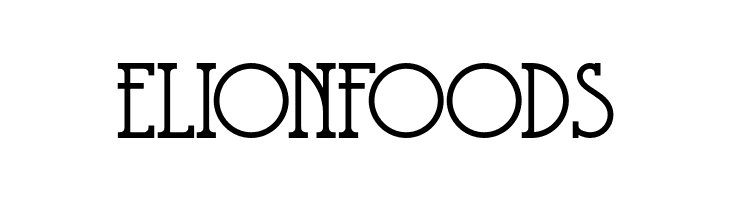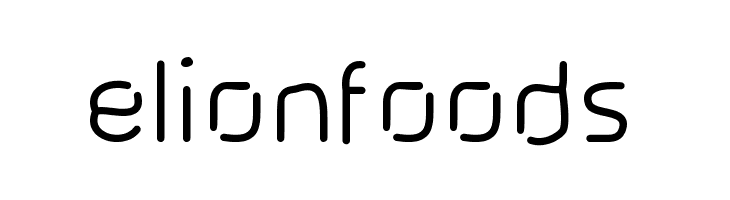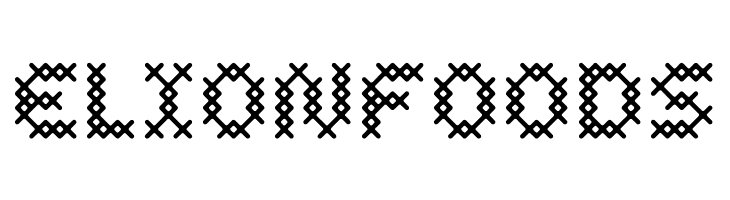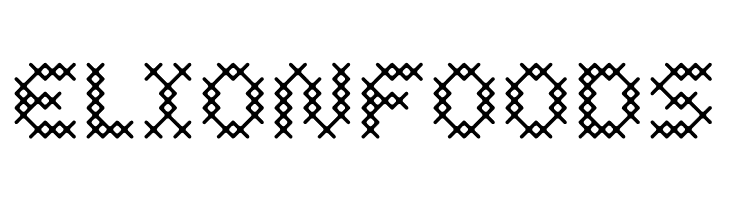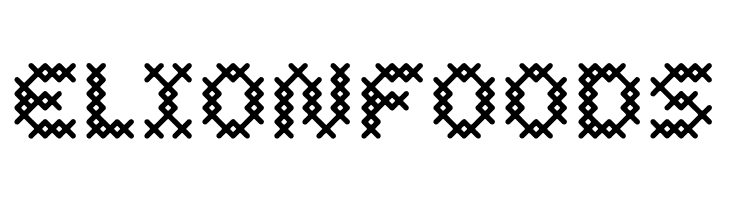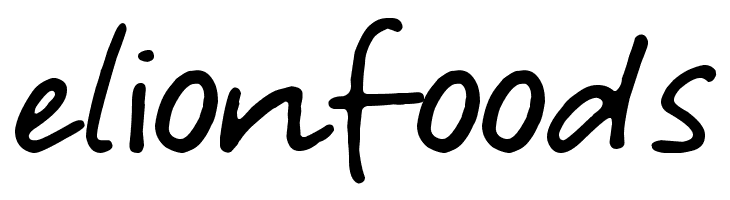
• GOIABADA
( billyargel.blogspot.com/ )
A bold, decorative font with playful, three-dimensional characters and unique flourishes.
• GOIABADA
A bold, playful font with a three-dimensional outline and whimsical serifs.
• Goldmind
A lively, handwritten font with dynamic strokes and a playful aesthetic.
• GoldRing
A bold, geometric font with a three-dimensional, sculpted look.
• Golga
( Fonts by Gassstype )
A bold, modern font with high contrast and rounded edges, perfect for headlines.
• Goodbye Crewel World NF
A decorative font with a cross-stitch pattern, evoking a handcrafted feel.
• GoodbyeCrewelWorldNF
A decorative font with a cross-stitch embroidery style.
• Goodness Cakes Demo
A playful, handwritten script font with bold, expressive characters.
• GoodOldEyeCatchers
A vintage, hand-drawn display font inspired by retro advertisements.
• GoodPeace
( Fonts by Andrew Hart - dirt2.com )
A bold, distressed font with a vintage, grunge aesthetic.
• Gordon Heights
( Fonts by Pi Luo Chiu - thisisallenchiu.tumblr.com )
A clean, geometric font with rounded edges and consistent line weight.
• Goresant Script
A flowing, cursive script font with elegant loops and swashes.
• Goresant Script Dual
A dynamic and fluid script font with elegant, flowing letterforms.
• Goresant Script Light
A graceful and elegant script font with flowing, connected strokes.
• Gorila
A modern, geometric font with a clean and minimalistic design.
• Gorila
A modern, geometric font with clean lines and a structured, futuristic appearance.
• Gorila Bold